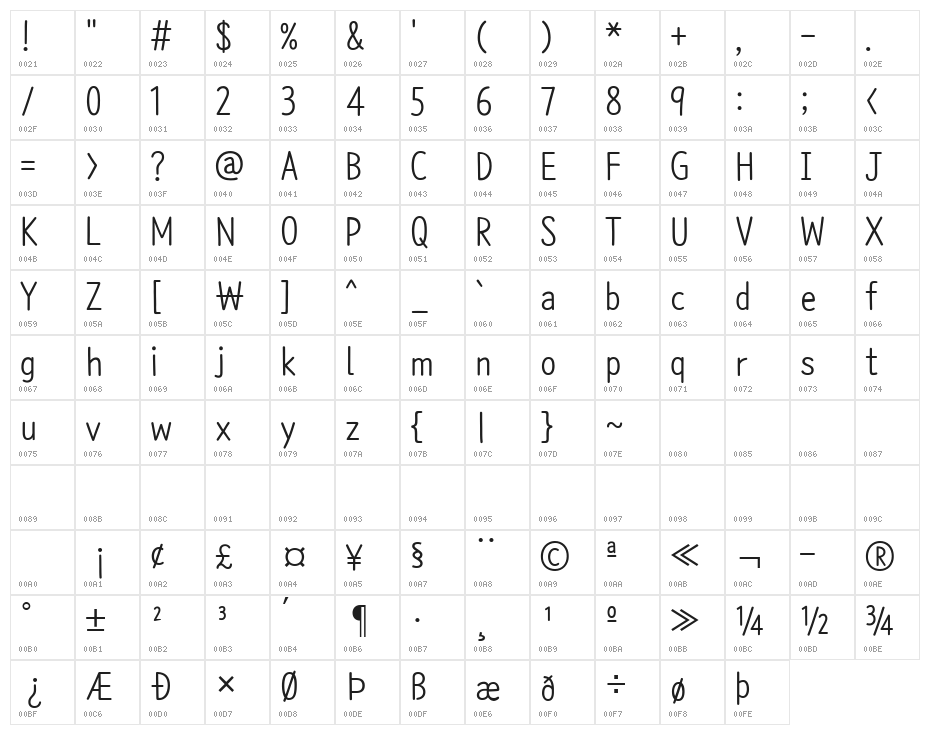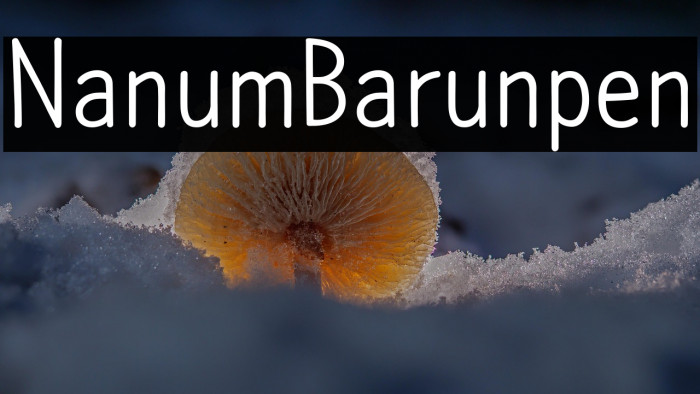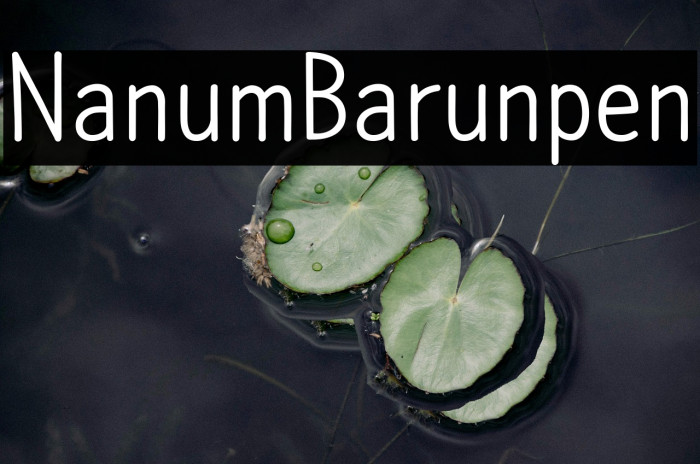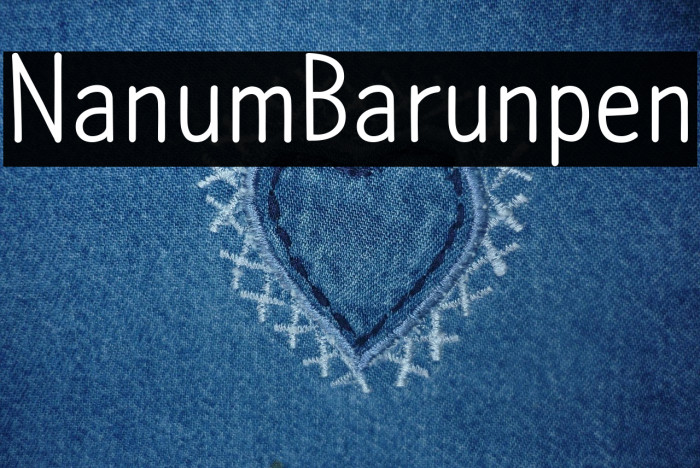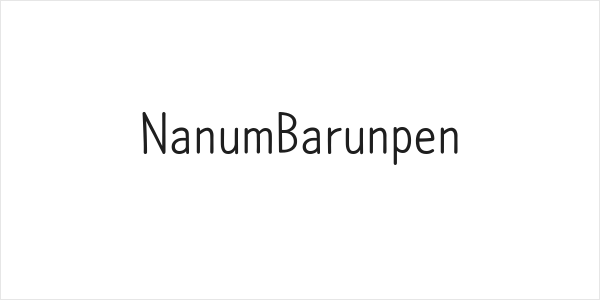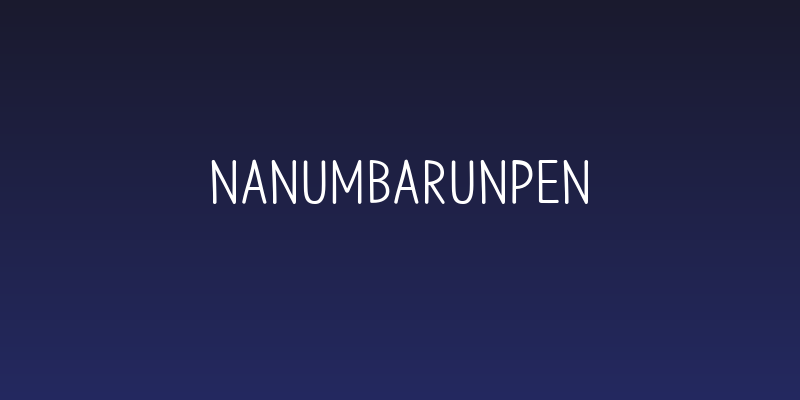
NanumBarunpen Font
NanumBarunpen Description
This font features a clean and friendly handwritten style with smooth curves and a consistent stroke width. The characters are slightly rounded, giving a warm and approachable feel. The uppercase and lowercase letters maintain a uniform height, contributing to its readability. The numerals and special characters are designed to complement the alphabet, ensuring a cohesive look across all text. Its simplicity and clarity make it suitable for various design applications.